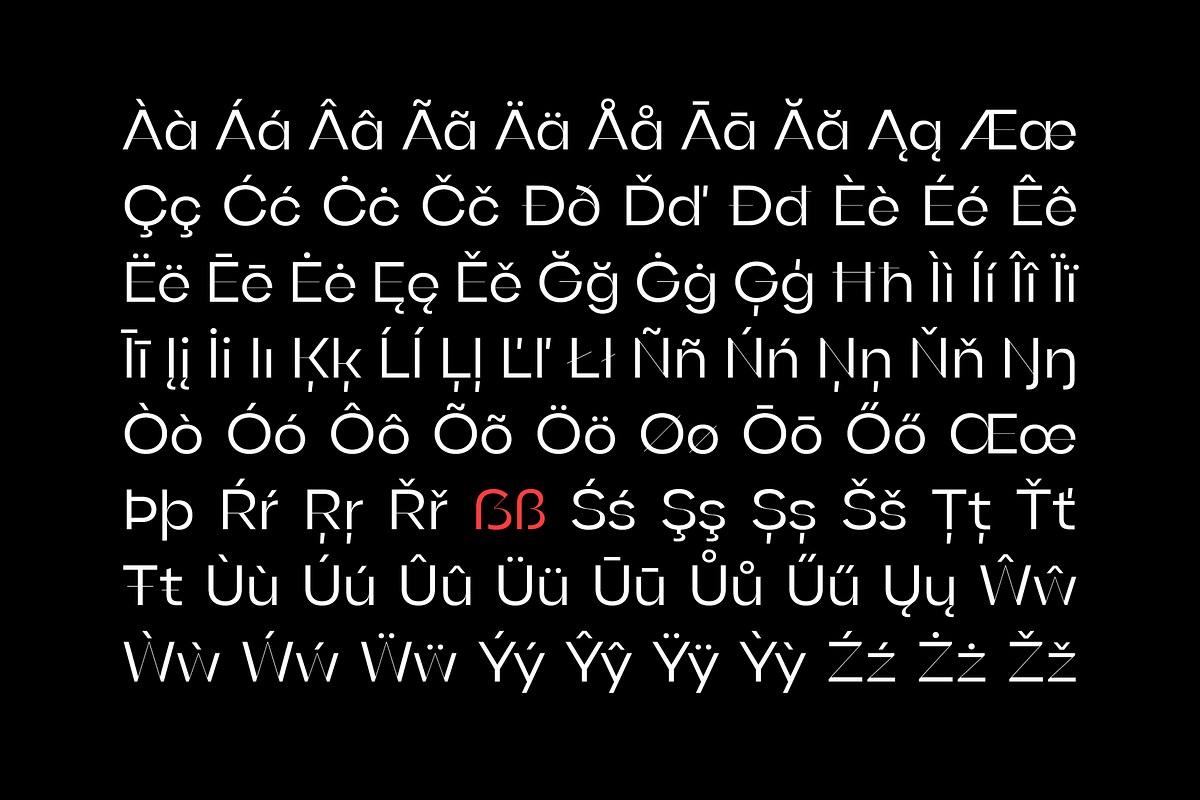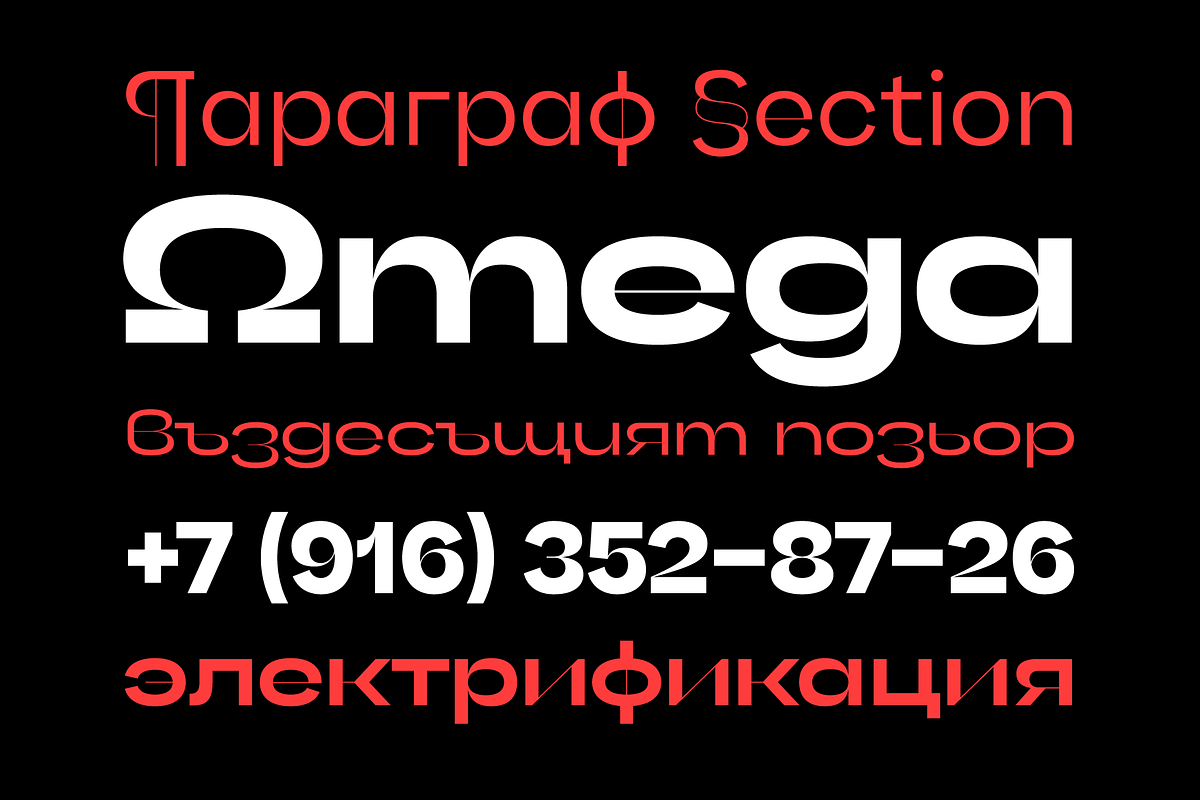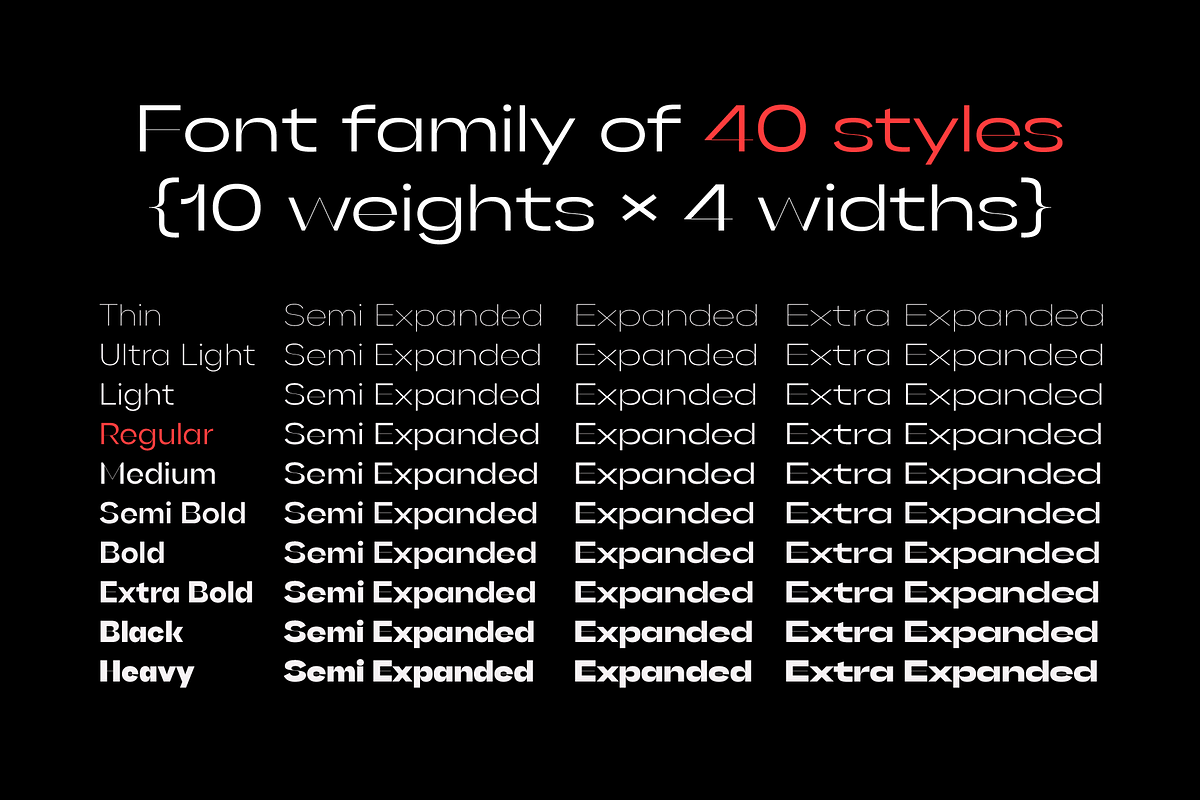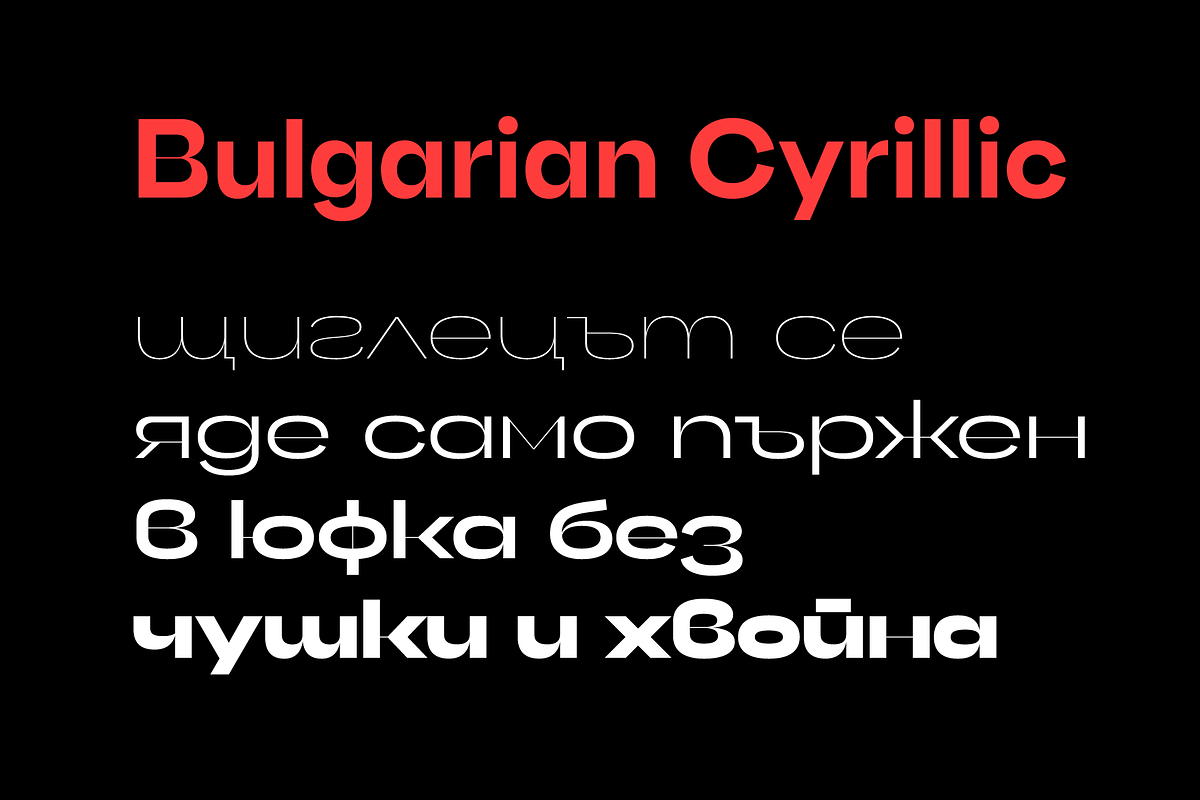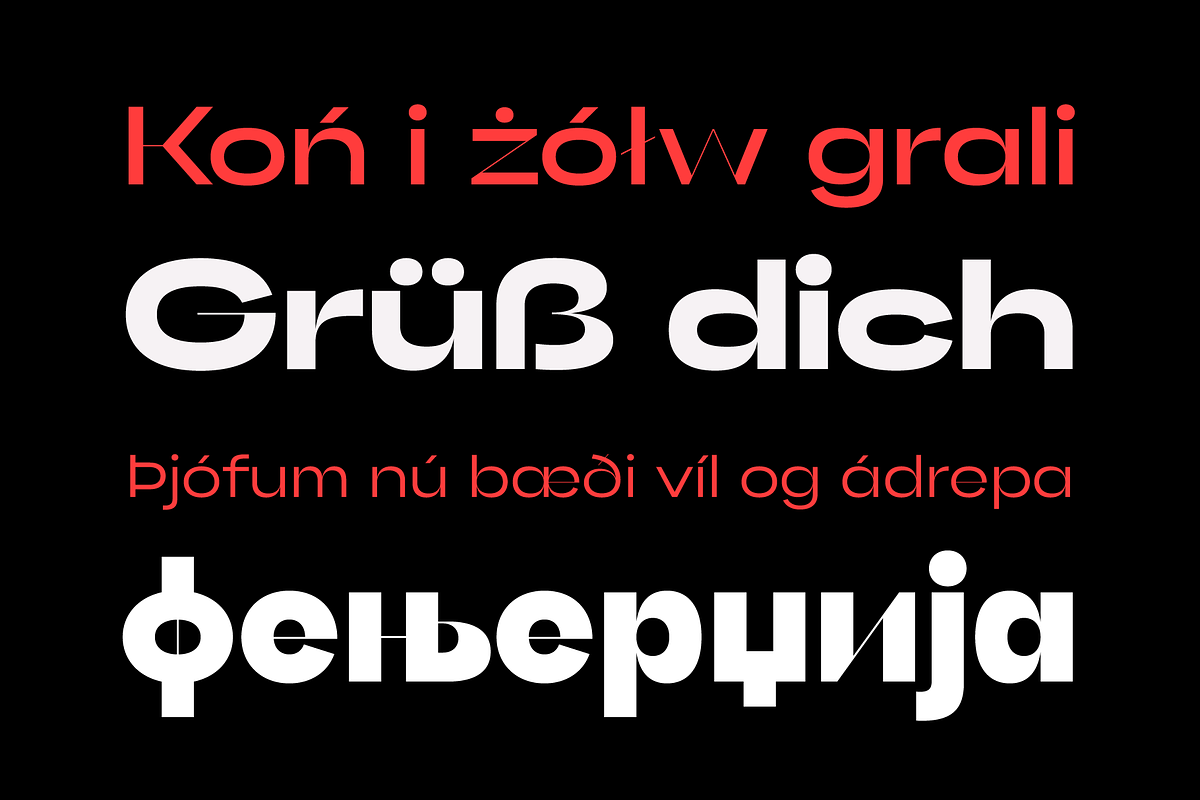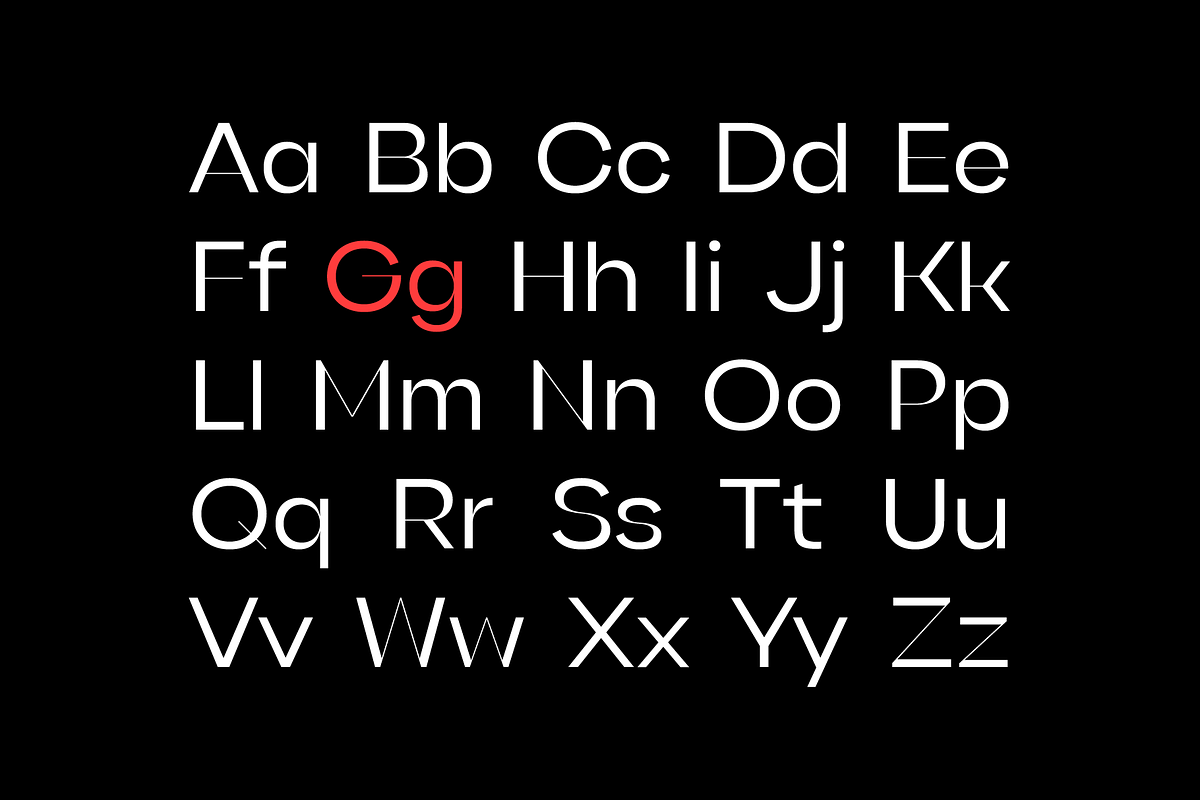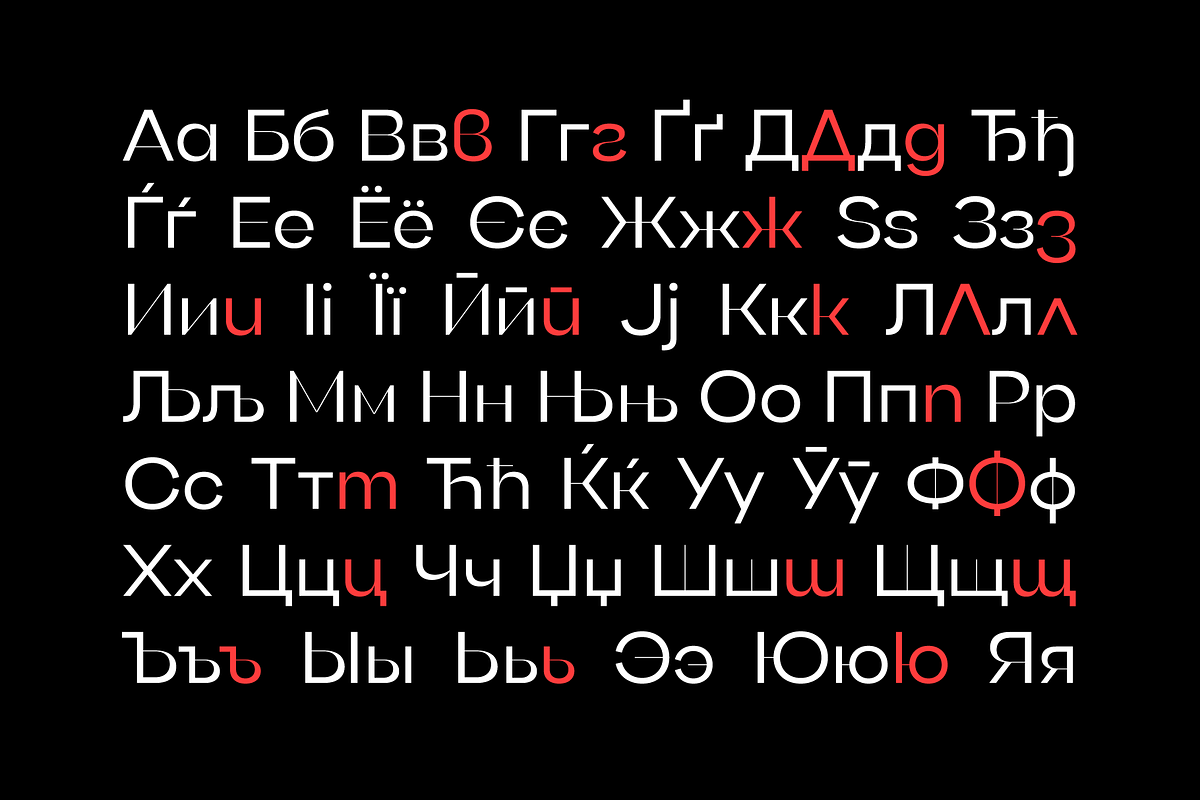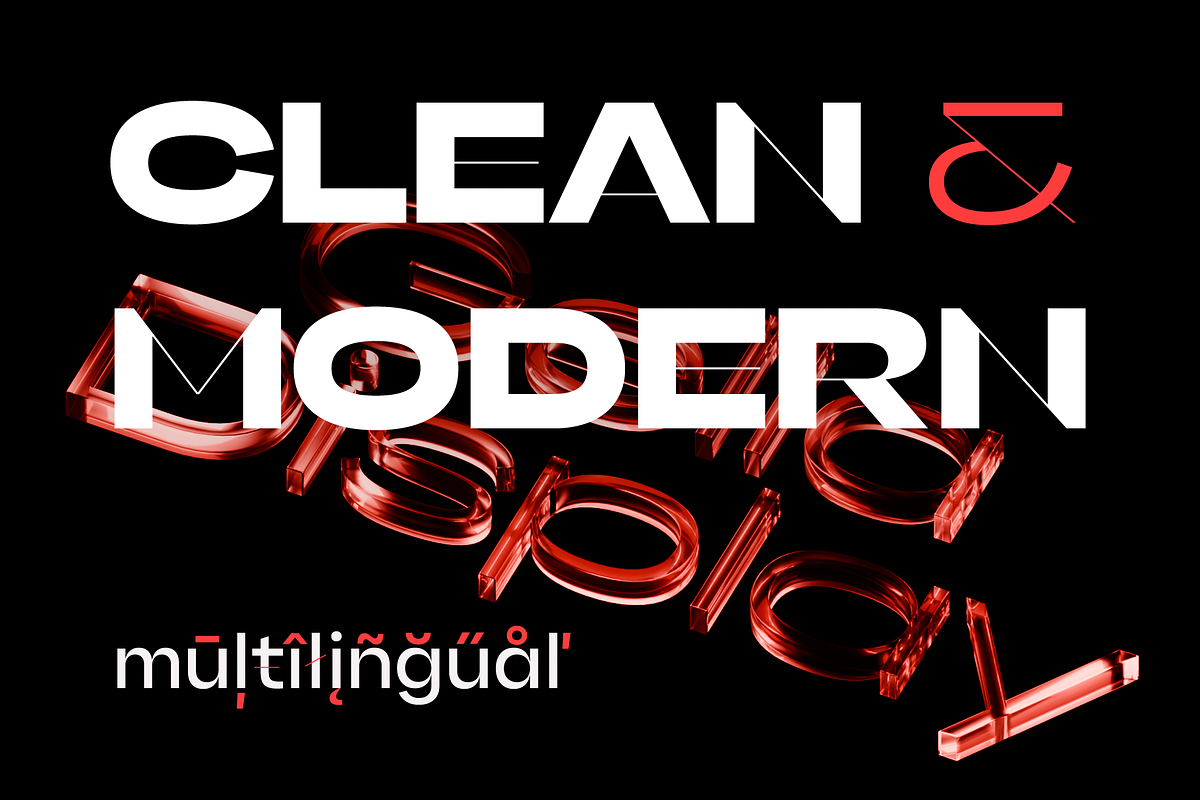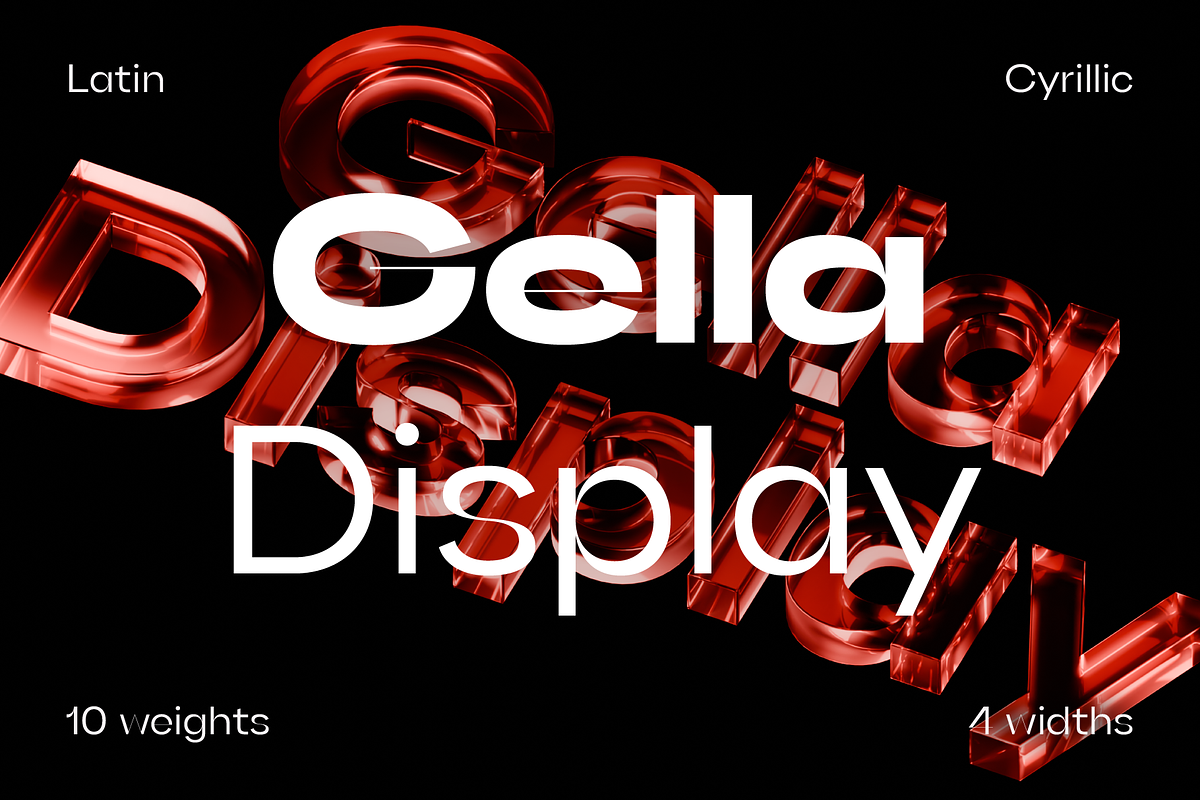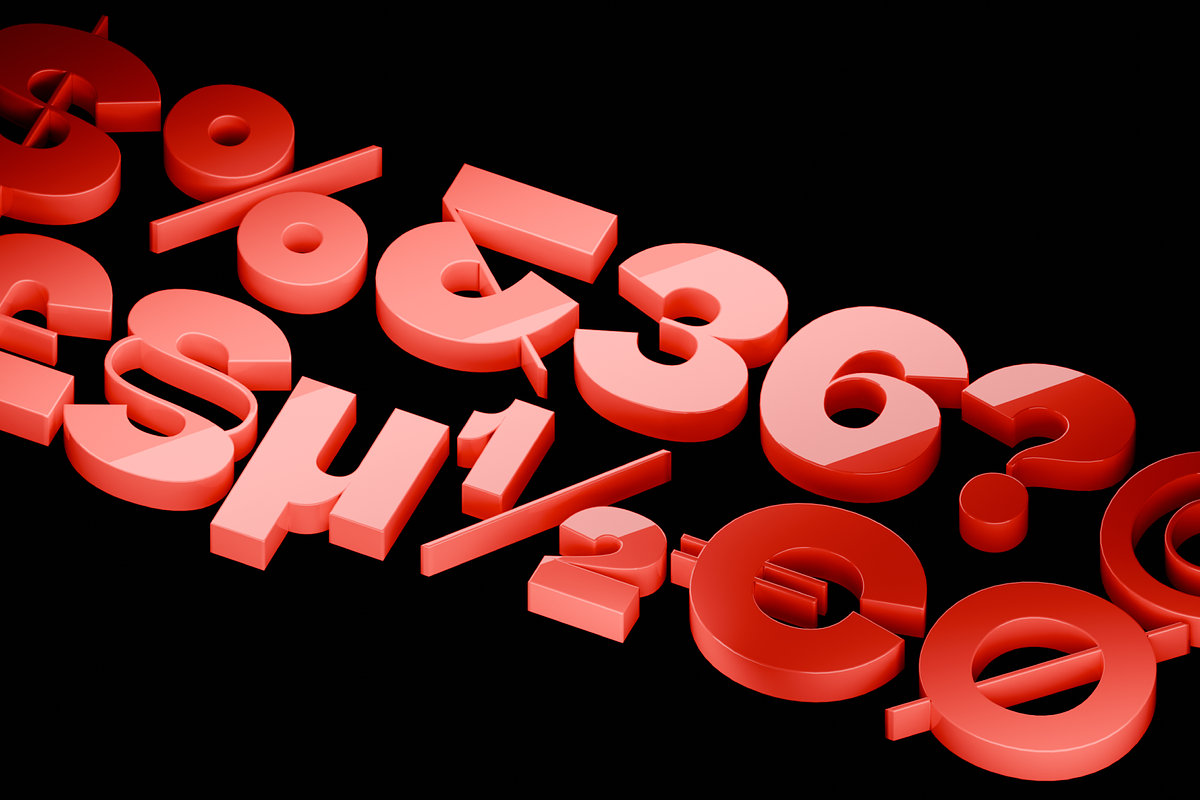
Gella Display — display sans serif
Gella Display is a high-contrast geometric sans serif family built around four widths and ten weights. Its width system expands from a regular-width construction to progressively wider styles, giving designers greater control over the visual scale and presence of typography without moving into condensed proportions.
The family includes 40 styles: 10 weights across 4 widths. The regular width provides a balanced geometric foundation, while the wider styles create increasingly expansive letterforms for stronger display compositions.
Gella Display is particularly suited to branding, logos, headlines, posters, packaging, editorial design, presentations, advertising, social media, and contemporary visual identities. Its width variations allow the same typographic character to shift from a balanced appearance to a much more open and emphatic one while maintaining consistency throughout a project.
Each style contains 592 glyphs and supports Latin and Cyrillic scripts with broad multilingual coverage. The family includes standard and discretionary ligatures, Romanian and Bulgarian localized forms, fractions, numerator and denominator figures, superscript and subscript figures, monospaced figures, ordinals, contextual alternates, case-sensitive forms, 6 stylistic sets, localized forms within two of the sets, and stylistic alternates.
Its defining combination of high internal contrast, geometric forms, ten weights, and four progressively wider widths makes Gella Display a flexible display system for designers who want to control both typographic weight and horizontal presence within a consistent family.